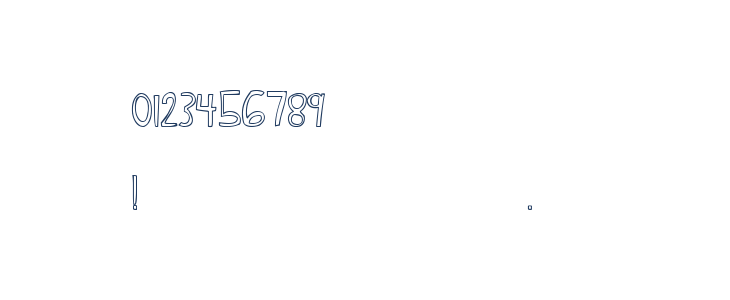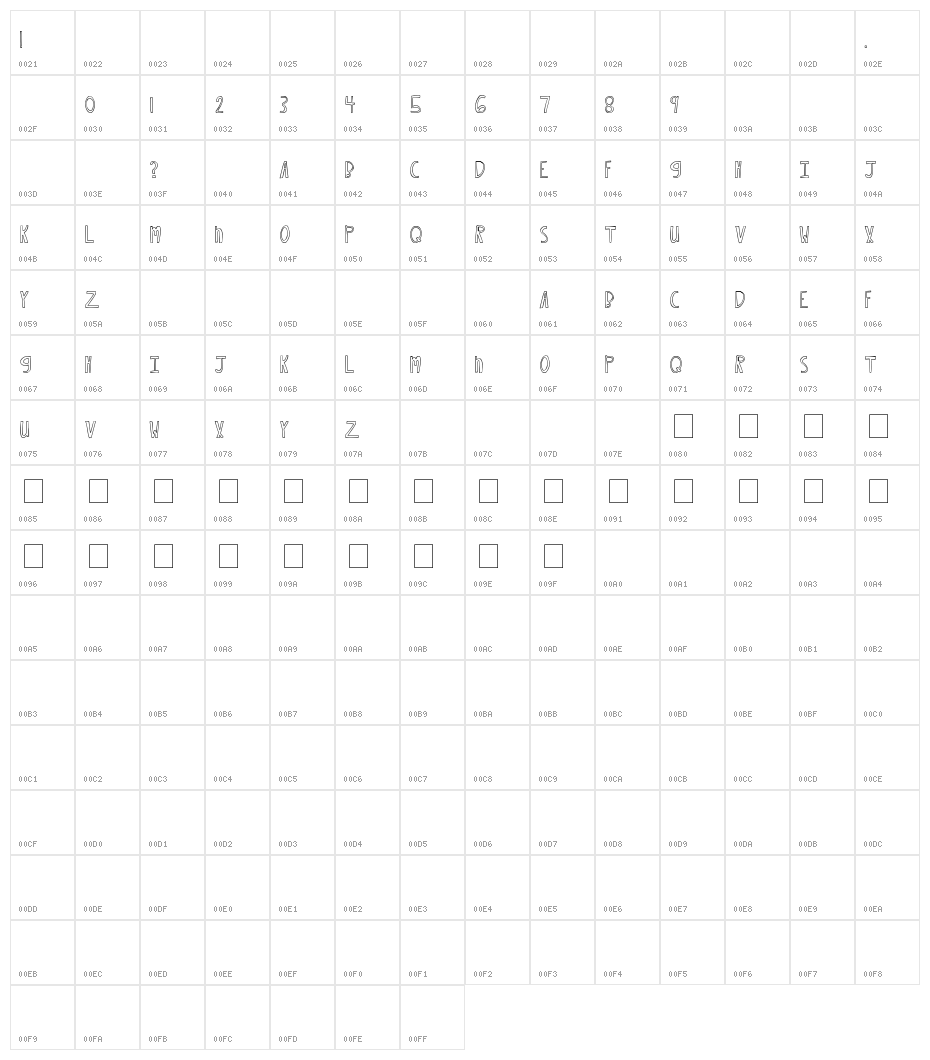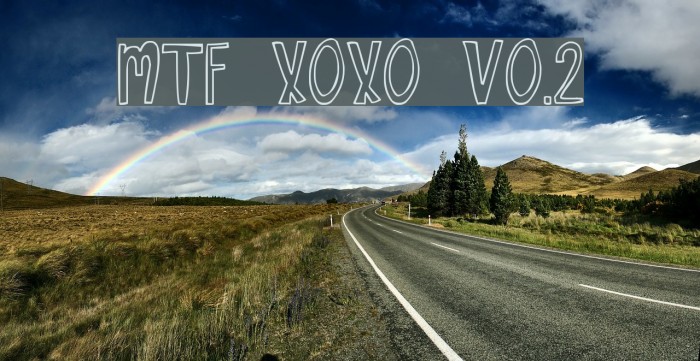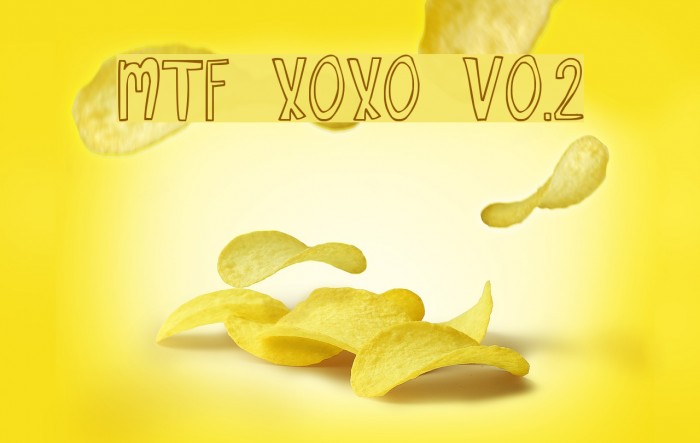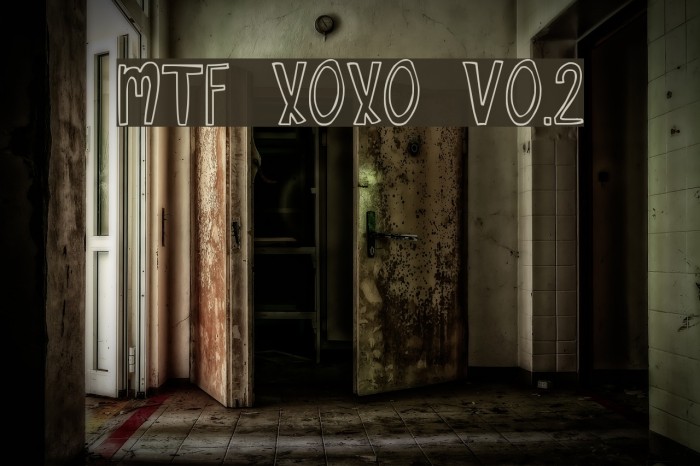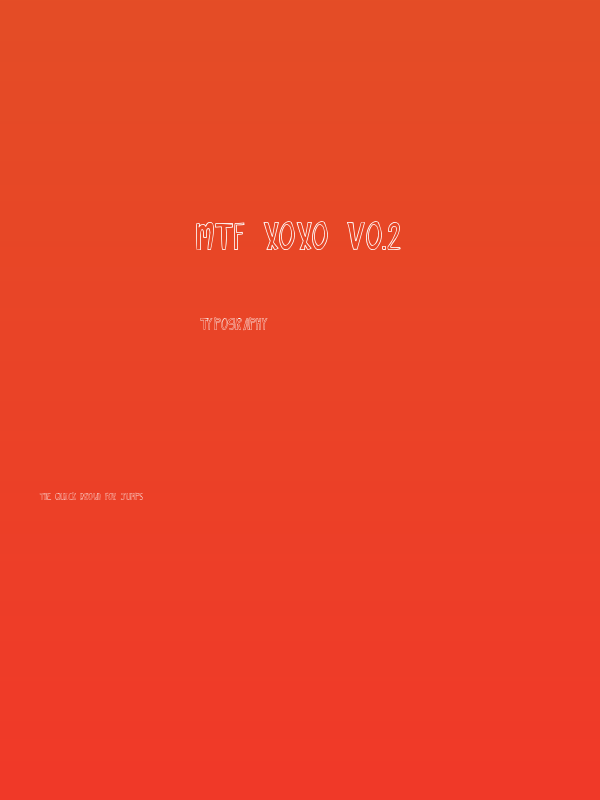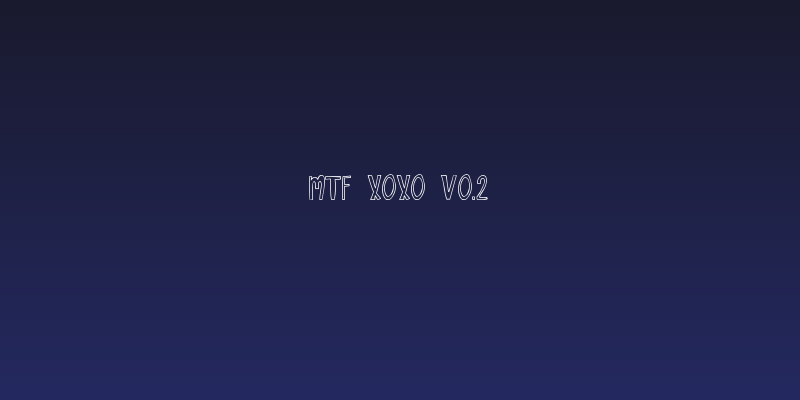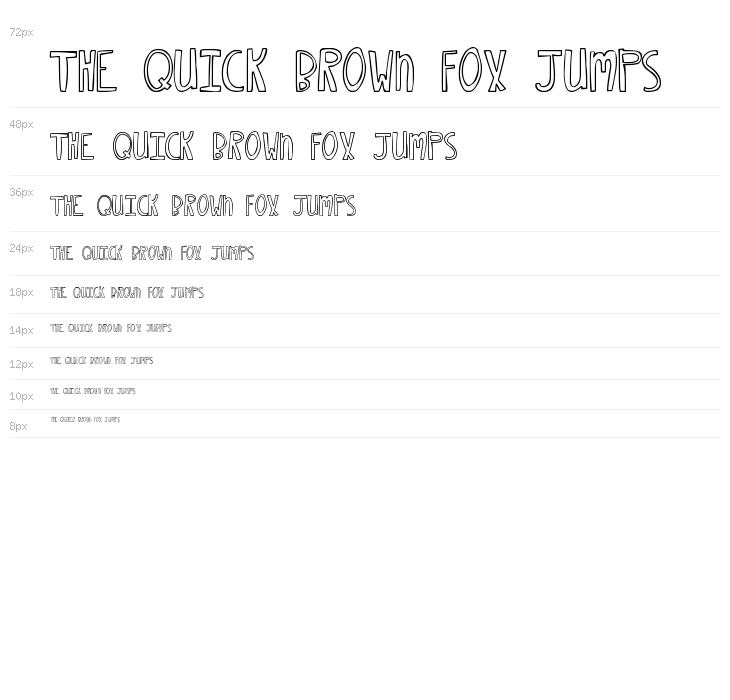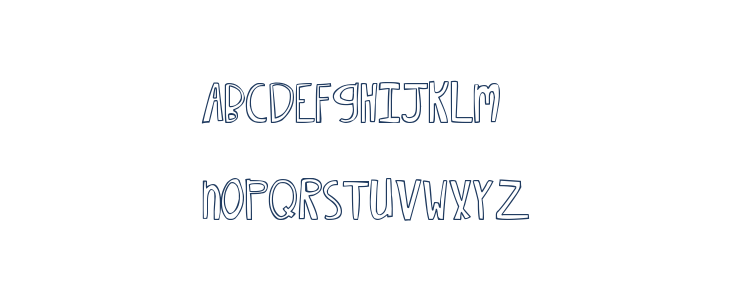
MTF XOXO Vo.2 Font
MTF XOXO Vo.2 Description
This playful and whimsical font features a hand-drawn style with a unique outline effect. Each character is crafted with a casual, artistic flair, giving it a lively and energetic appearance. The letters are slightly irregular, adding to the charm and informal nature of the design. The font maintains a consistent stroke width throughout, with rounded edges that soften the overall look. Its distinctive style makes it stand out, perfect for projects that require a fun and engaging typeface.
Overall StyleWhimsical and playful
Proposed ProjectsIdeal for children's books, greeting cards, playful branding, and creative posters.